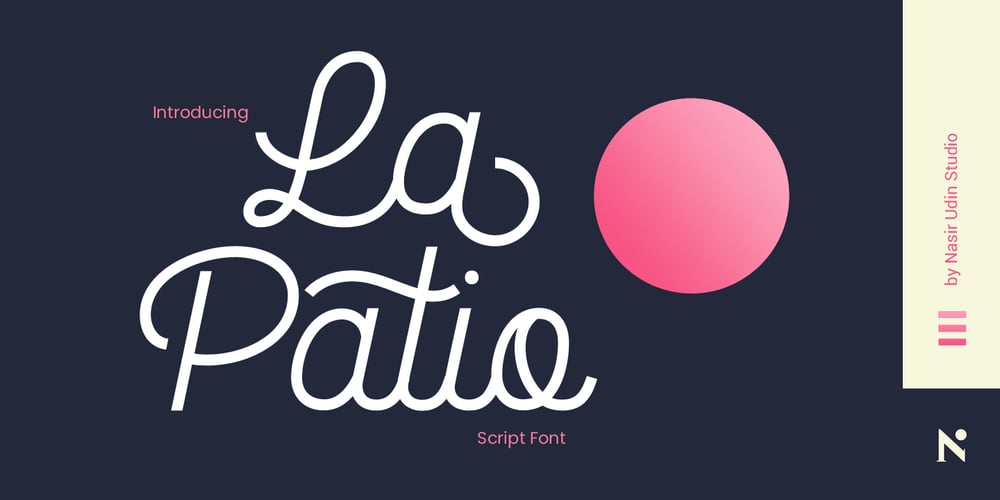
La Patio Font Family was designed by Nasir Udin and published by Nasir Udin. La Patio contains 1 styles and family package options. Say hello to La Patio Script, a monoline script font with fun vibes to spread happiness. A perfect choice to give a holiday vibe to any products, merchandise, restaurant or cafe. La Patio comes with several alternates and swashes for you to play with. Also the underline & border features help you to give a special character to your design. It’s especially created for restaurant signs with outdoor/open air concept. That’s why it’s called La Patio. Beside that, it’s also perfect for poster, business cards, magazines, blog, book, neon signage, badges, and many more happy things!